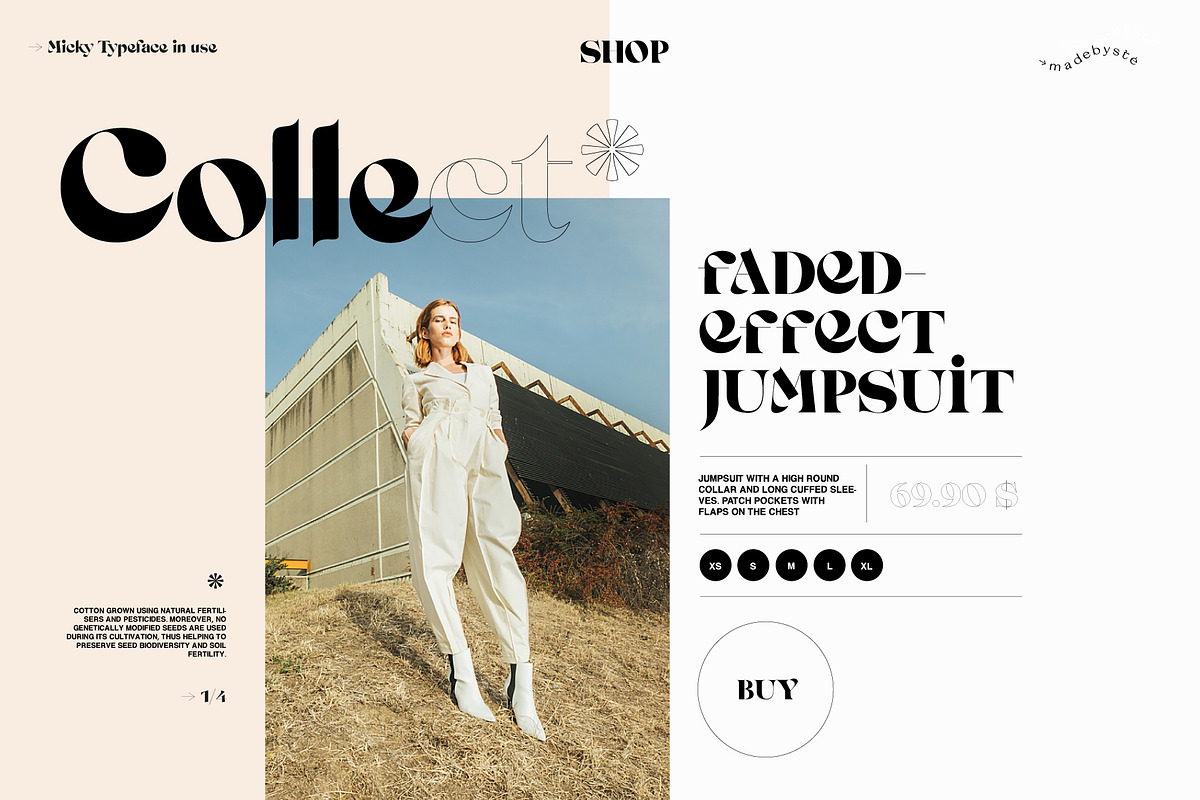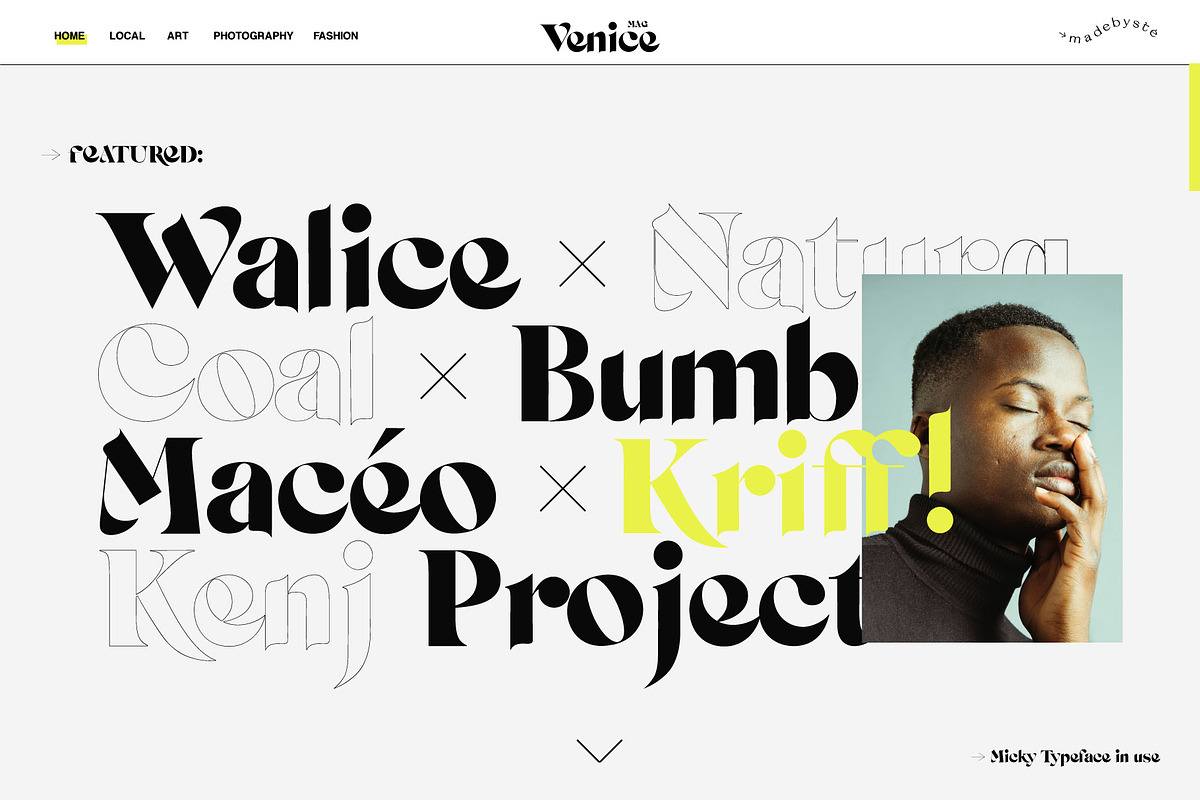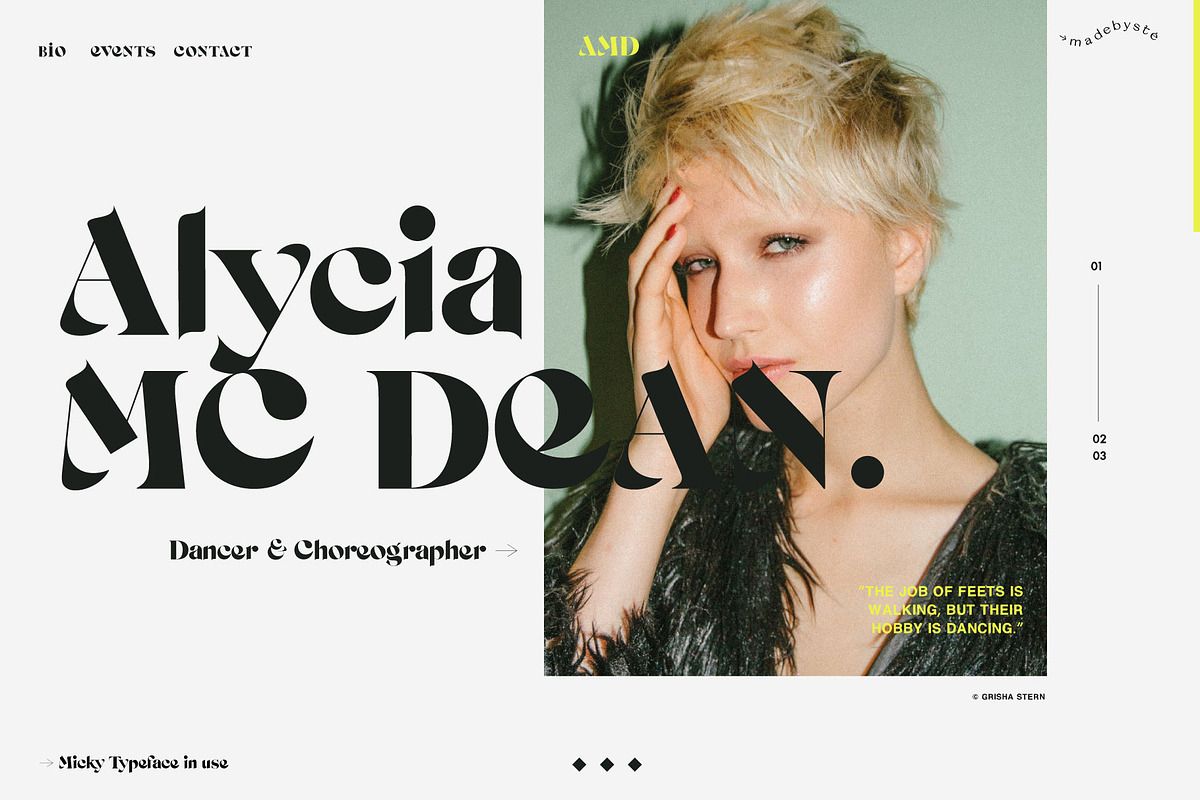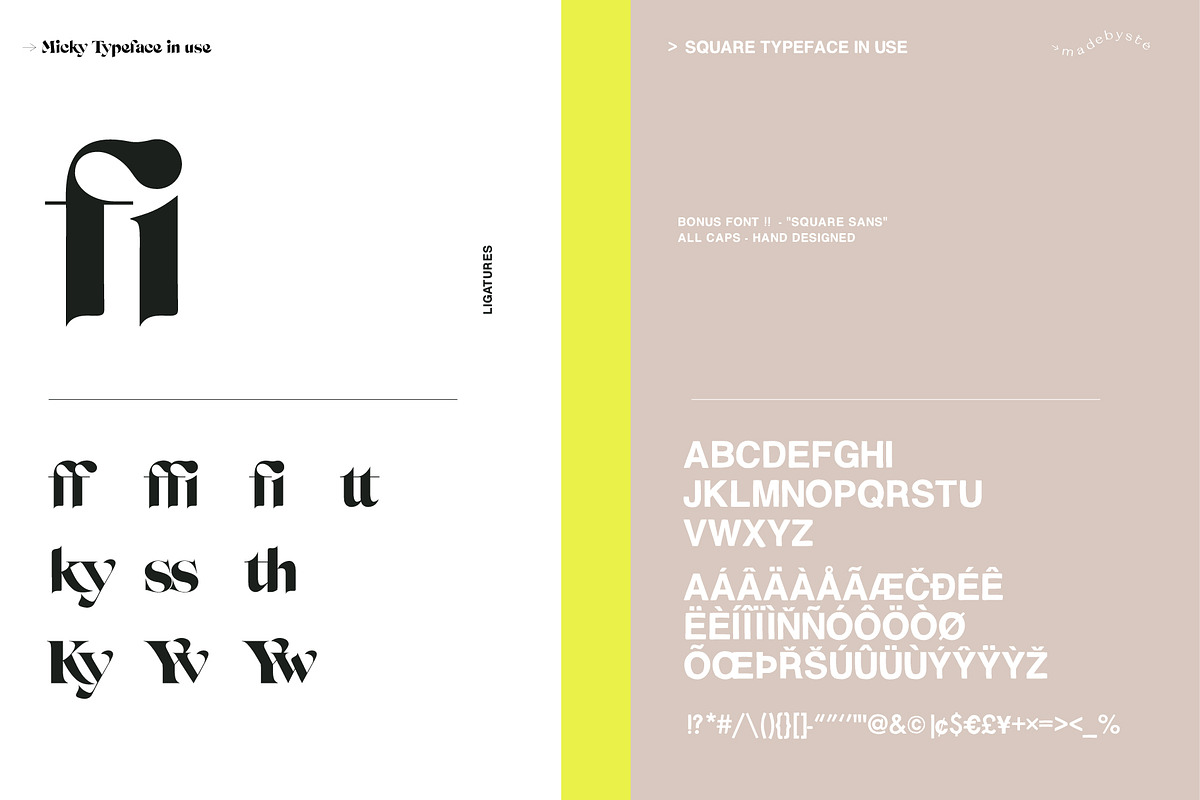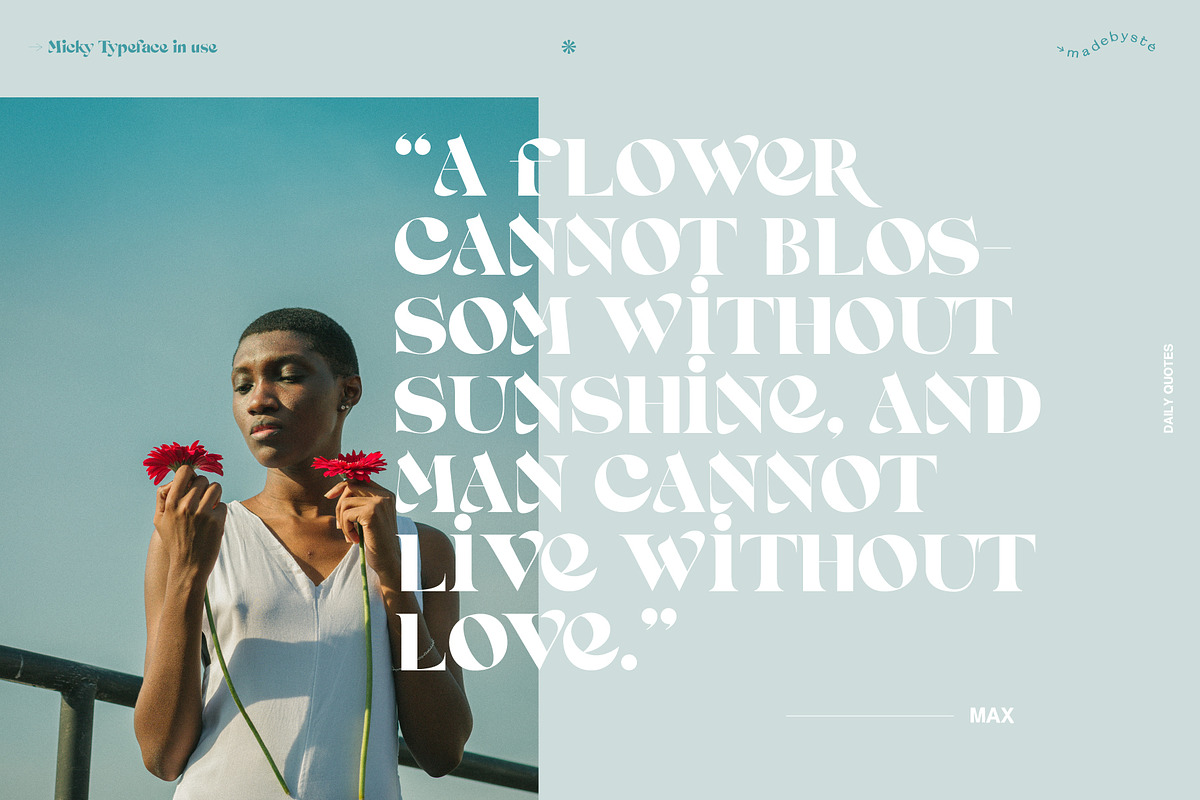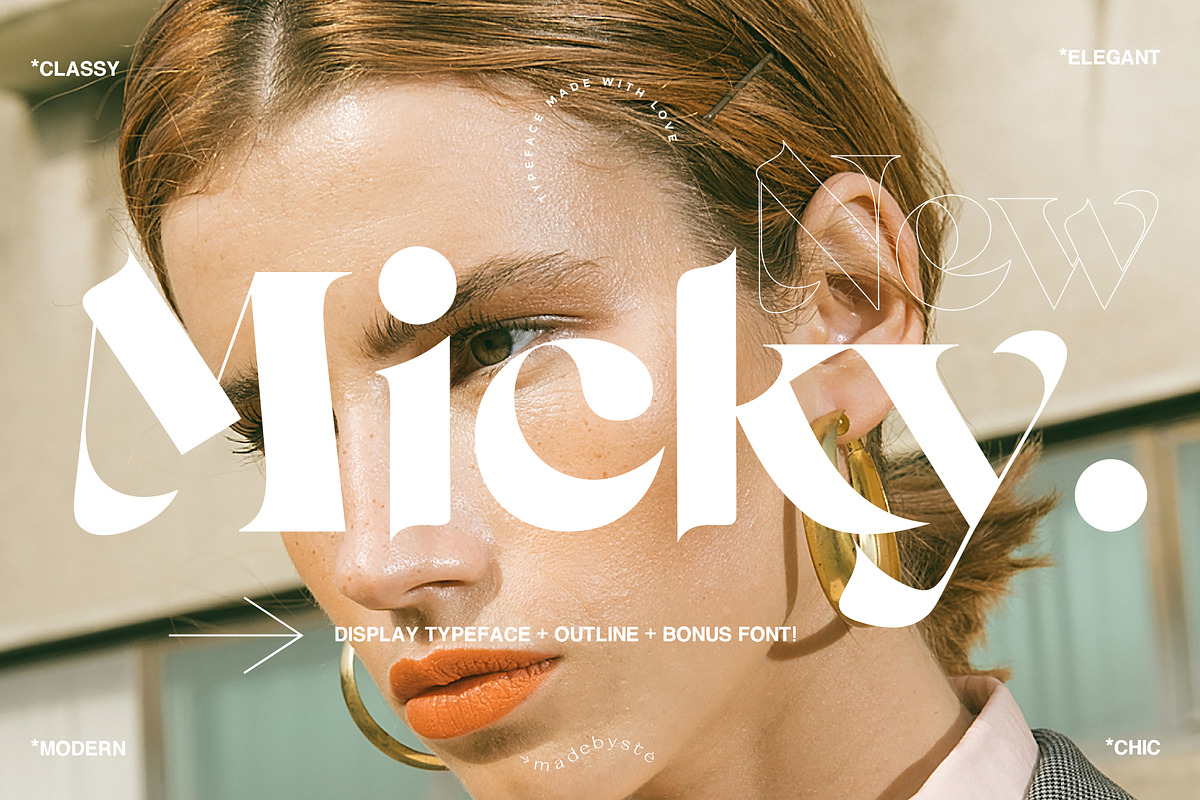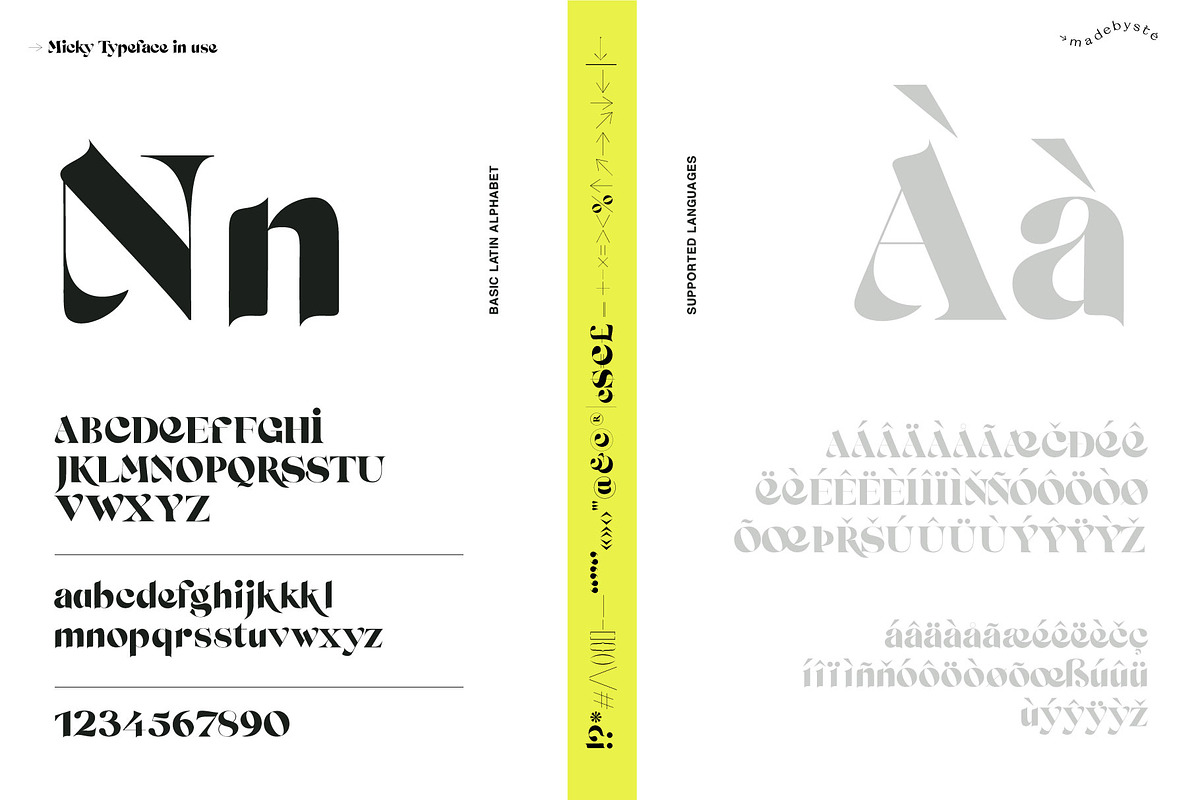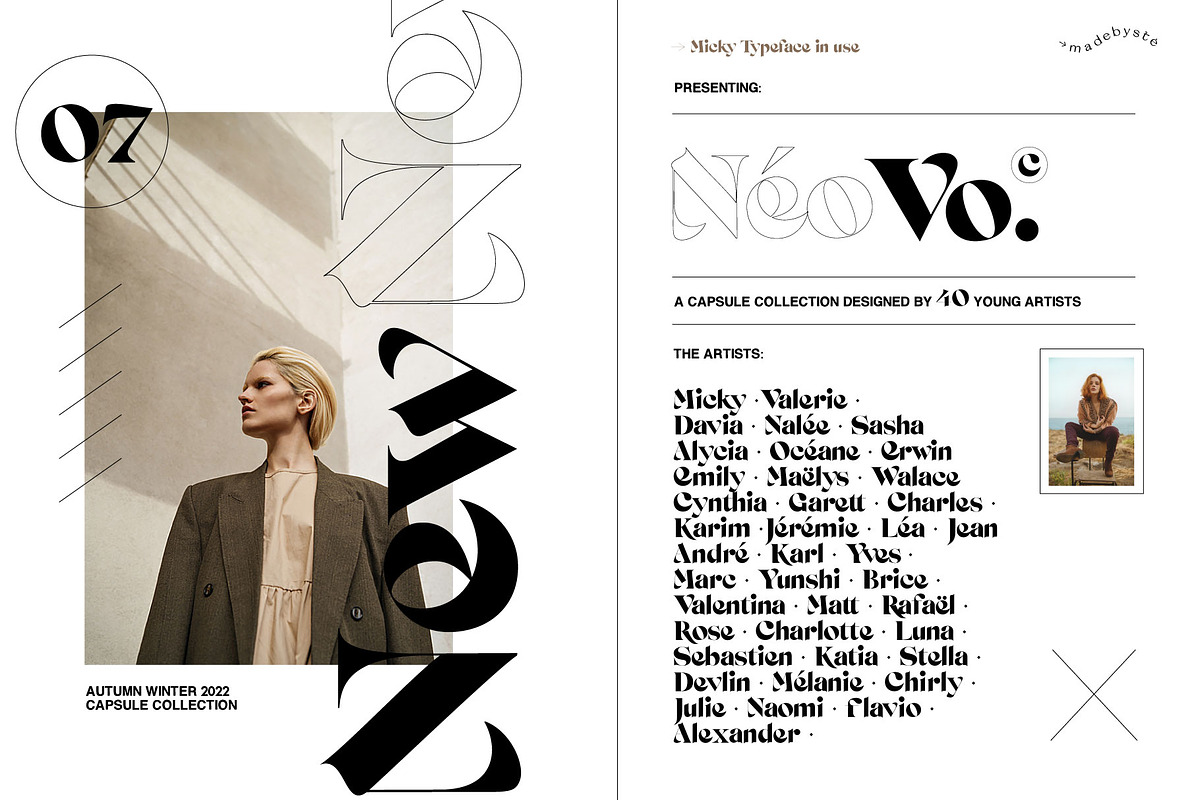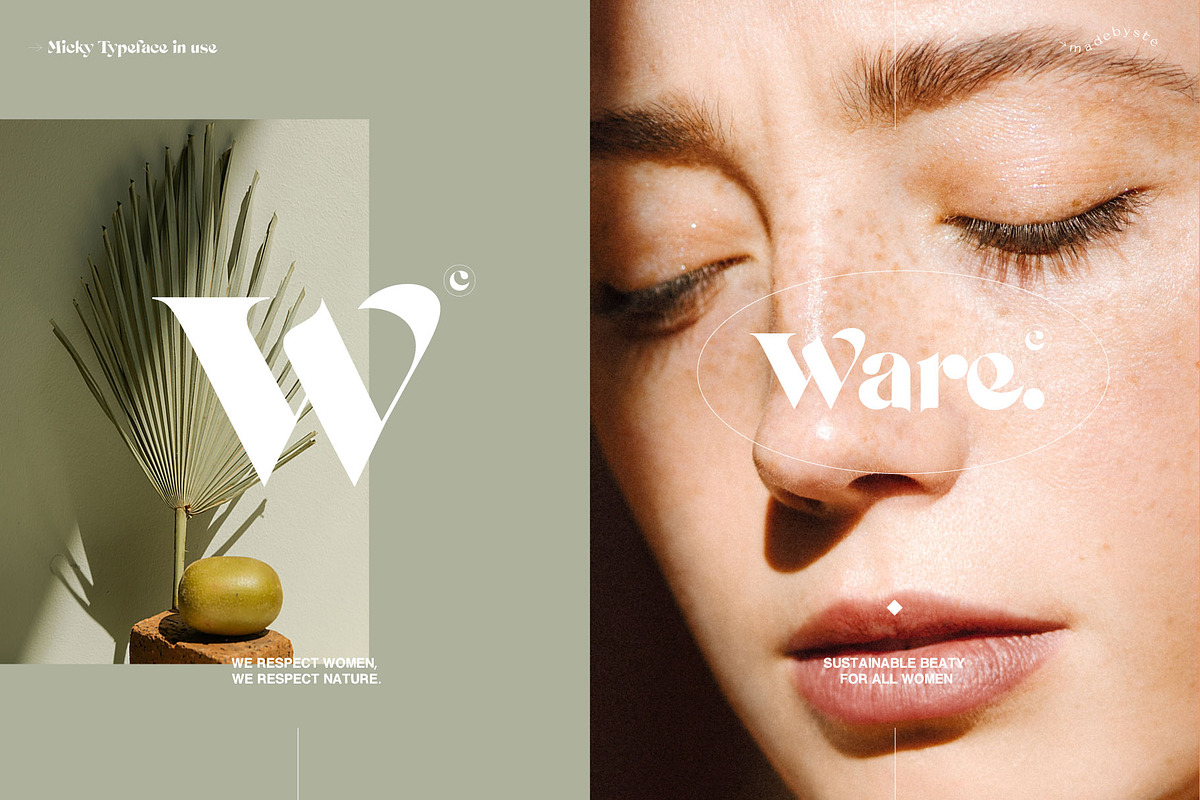
MICKY — REGULAR, OUTLINE & BONUS
Micky — Fashionable / Chic / Bold / Fearless
Combine Micky Regular & Outline Versions to create strong and impactful designs. Have fun! Plus use the BONUS "Square" Typeface to complete the experience.
Micky is a fearless and chic typeface perfect for big headlines for both print and web. Create stunning and original layouts with the 3 fonts.
- Micky Font + Micky Outline Regular + Micky Outline Thin
- Upper/lower case, numbers, punctuation and multilingual support.
- BONUS: A sans serif handwritten font called "Square"